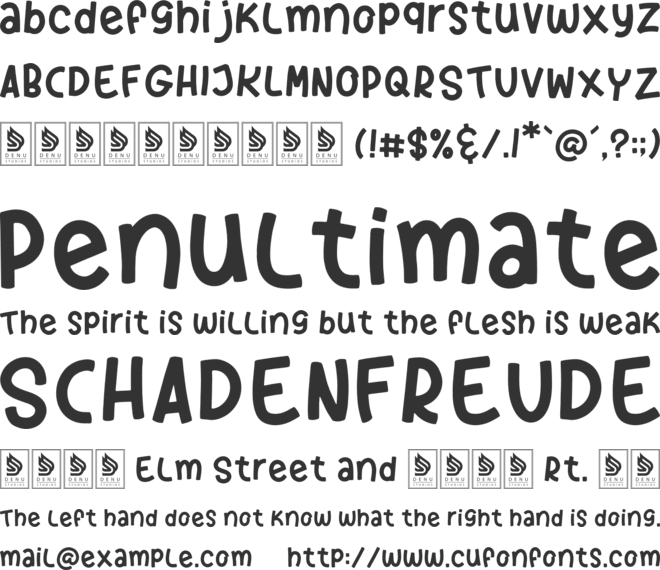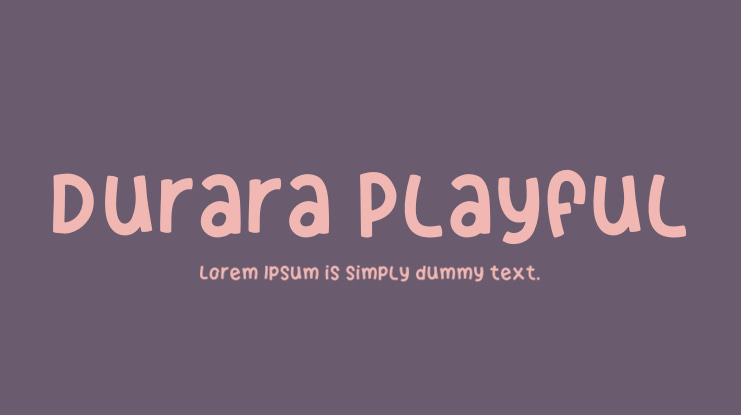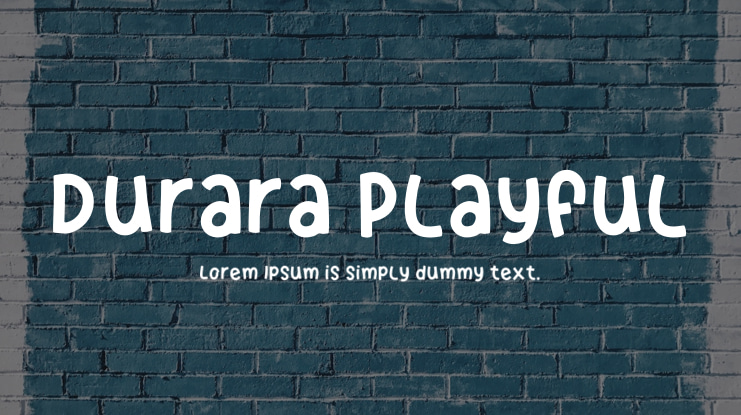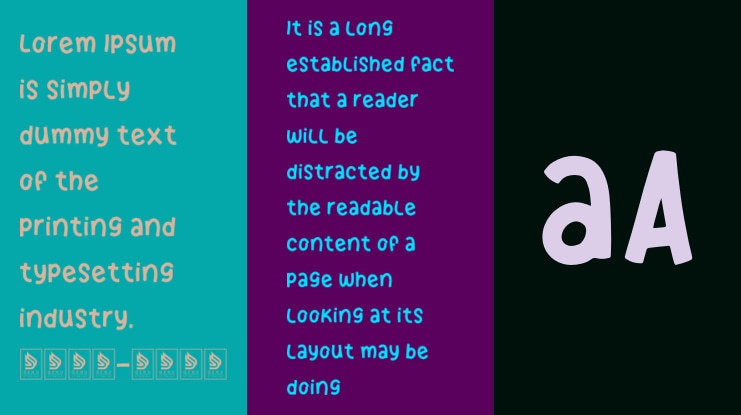
Durara Playful Font
Durara Playful | Handwritten Font is suitable for various projects including logos, branding projects, homeware designs, product packaging, mugs, quotes, posters, shopping bags, t-shirts, book covers, name cards, invitation cards, greeting cards, labels, photography, watermarks, special events, and any other projects that require a handwritten font touch.